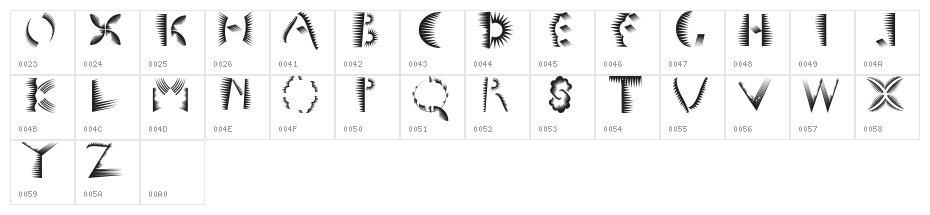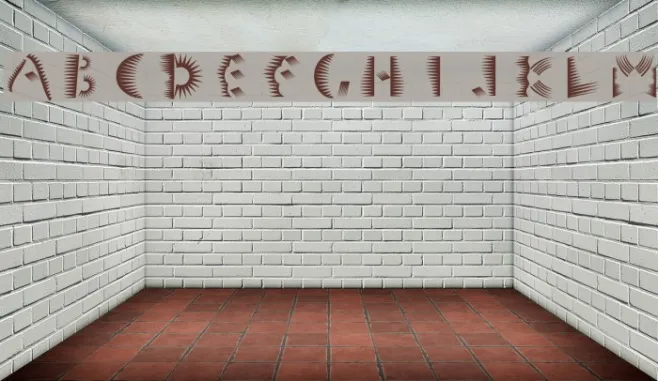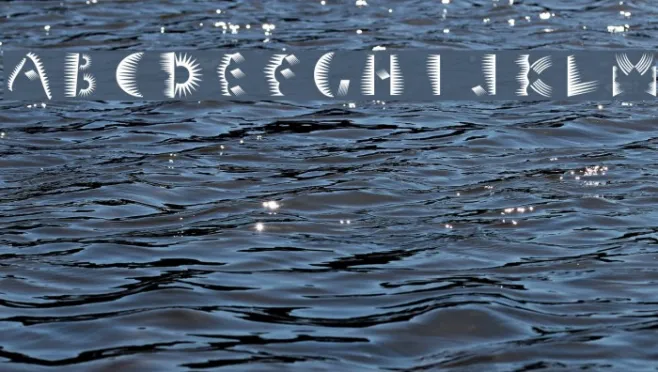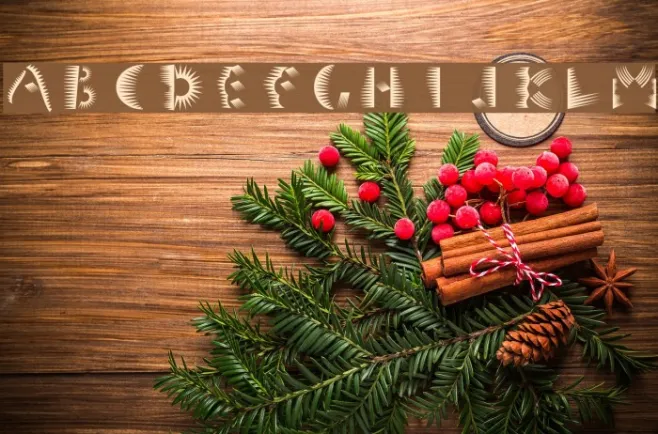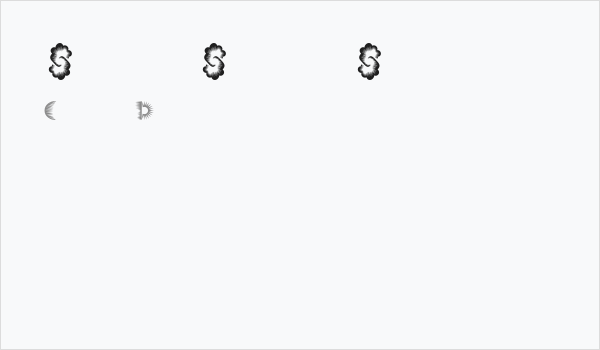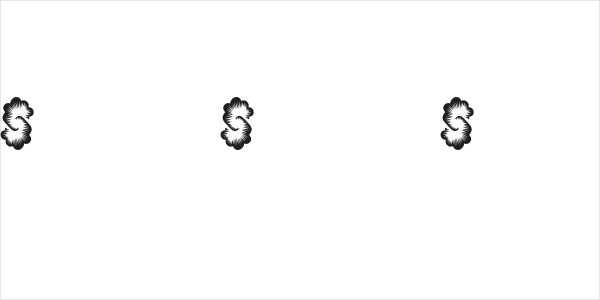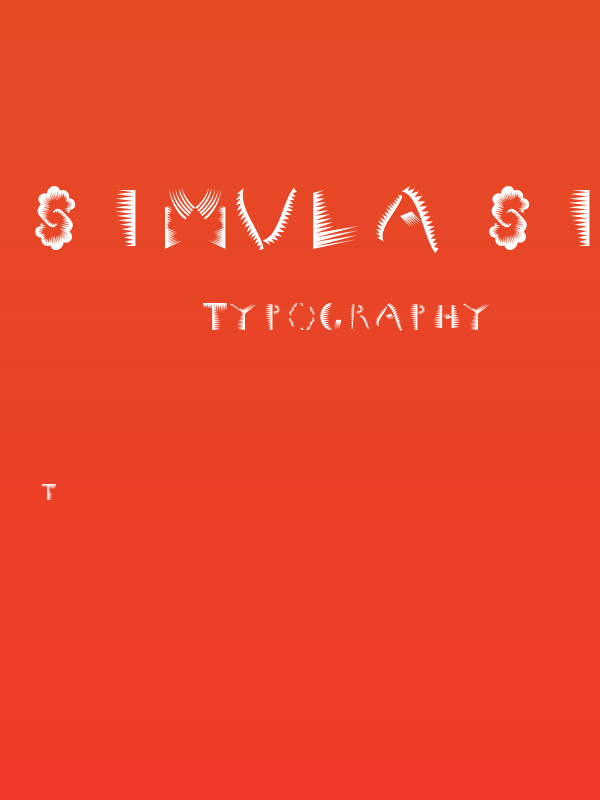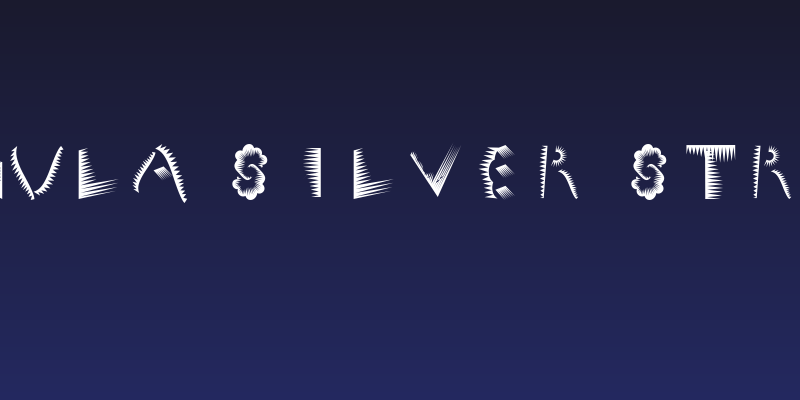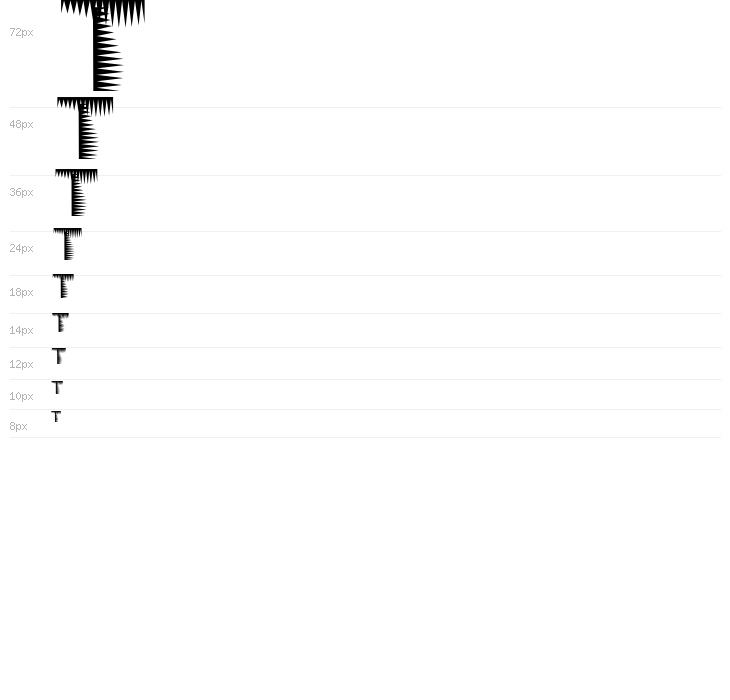
Simula Silver Stripe Font
Simula Silver Stripe Description
This font features a striking and unique design characterized by its use of bold, angular lines and intricate patterns. Each character is crafted with a series of sharp, pointed strokes that create a dynamic, almost three-dimensional effect. The letters appear to be composed of multiple layers, giving them a textured and complex appearance. The overall aesthetic is both modern and futuristic, making it ideal for projects that require a bold and eye-catching typeface. The font's high contrast and distinctive style make it stand out, ensuring that any text set in this font will capture attention.
| Overall Style | Modern, Futuristic |
| Proposed Projects | Ideal for use in branding, posters, album covers, and any project requiring a futuristic and striking visual impact. |